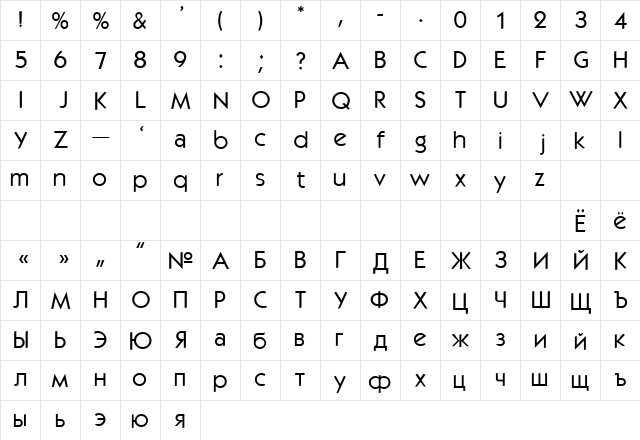
DG_Kabel Normal
Design Context for DG_Kabel Typeface
DG_Kabel offers clean, dependable letterforms without strong stylistic allegiance, making it a practical choice for designers who need flexibility.